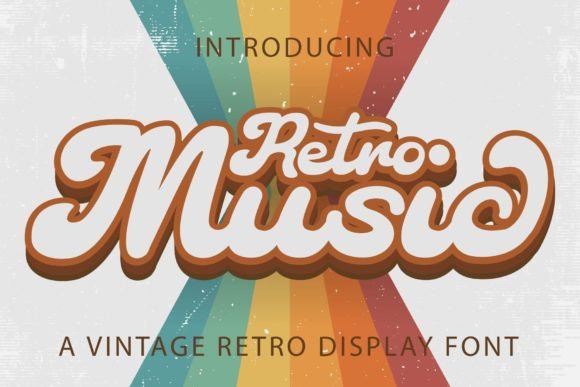
Prepare yourself to venture into a bygone era where charm and nostalgia reign supreme! Introducing Retro Music Font, the display font that captures the essence of yesteryears, transporting you to a world where music and aesthetics intertwine.
Crafted with meticulous detail by the visionary minds at Densu Creative, Retro Music Script is not just a font; it's a journey through time. Each character exudes the charm of vintage signage, reminiscent of neon lights illuminating bustling city streets. The flowing lines and playful curves evoke a sense of nostalgia, inviting you to embrace the timeless beauty of the past.
Immerse yourself in a symphony of design possibilities with Retro Music Script. Its versatility extends from logos that emanate retro vibes to branding that speaks volumes about your commitment to heritage. Create invitations that transport your guests to a bygone era of elegance, and stationery that leaves a lasting impression. Wedding designs will take on a touch of timeless romance, while social media posts will pop with a vintage charm that captivates your audience.
Unleash your creativity and let Retro Music Script serenade your designs. Whether you're a seasoned designer or just starting your design adventure, this font is your ticket to crafting masterpieces that resonate with audiences of all ages. Its user-friendliness makes it accessible to everyone, inviting you to explore the depths of your imagination and create designs that stand the test of time.